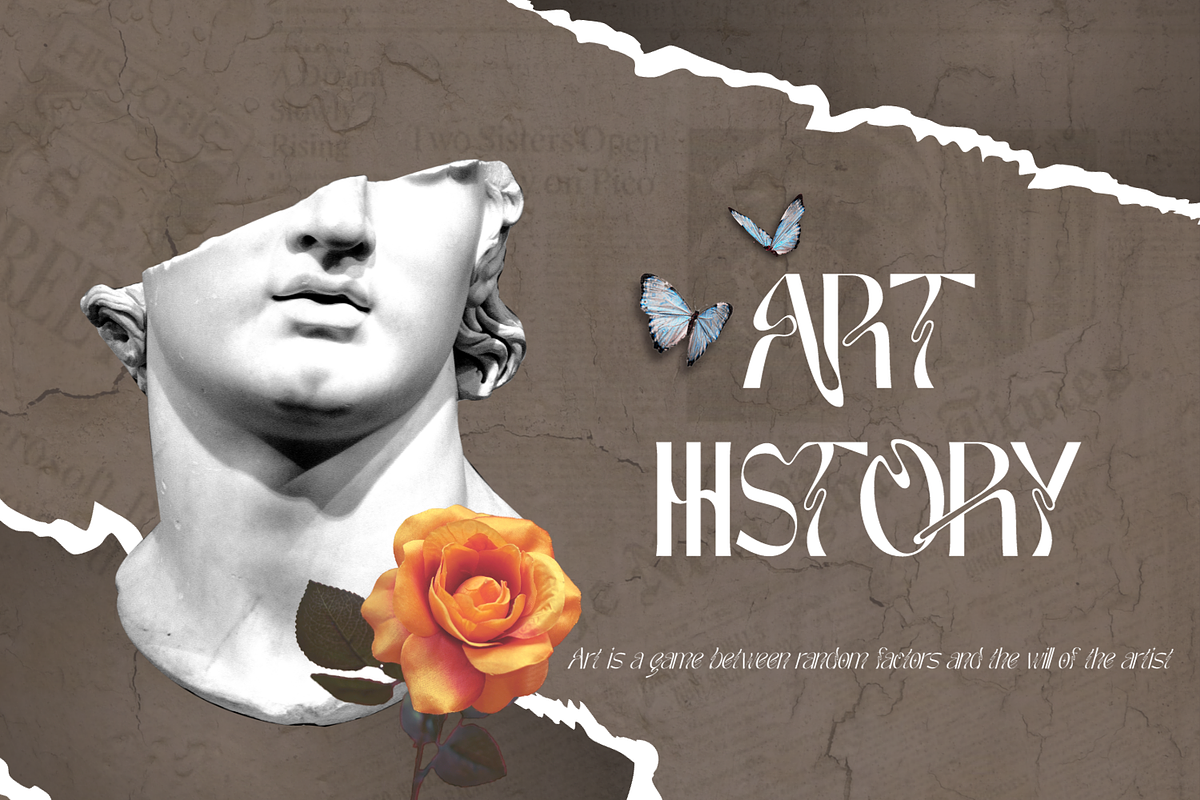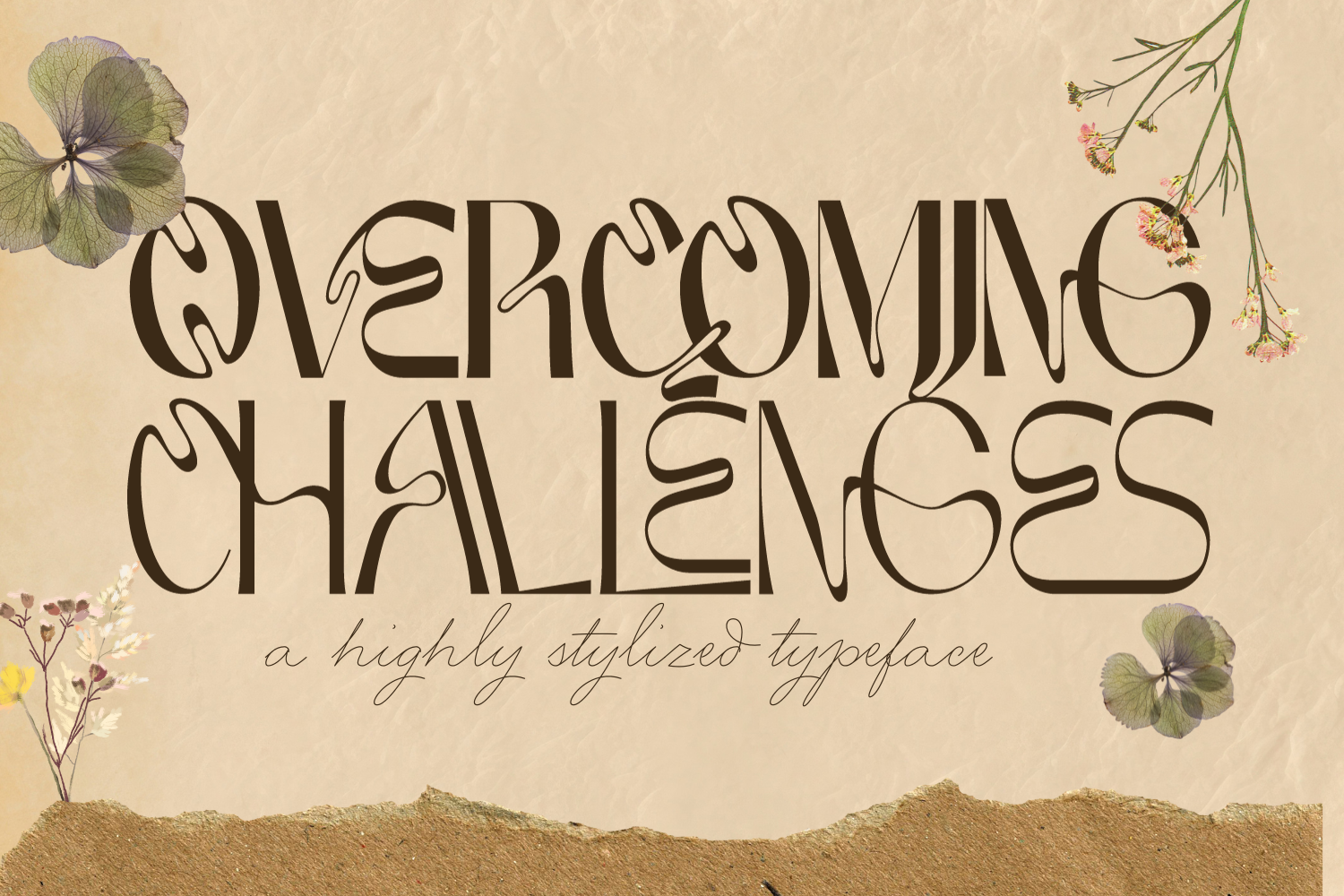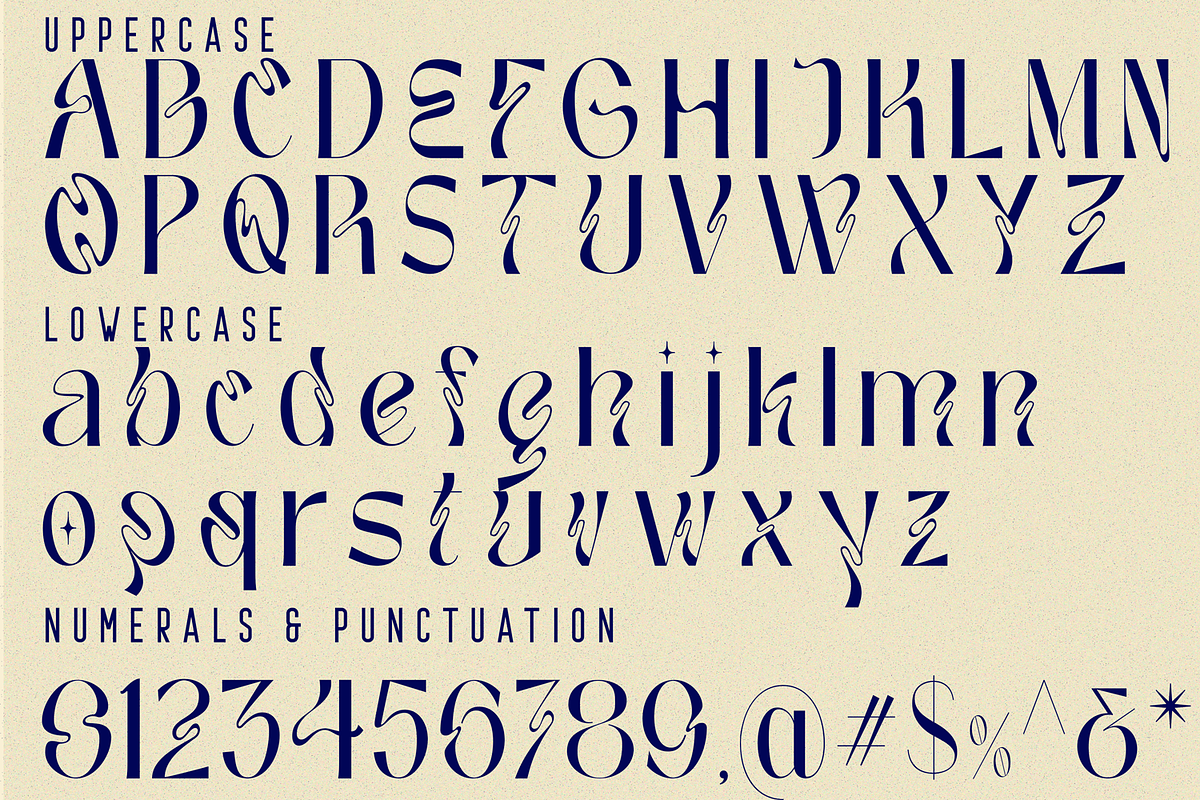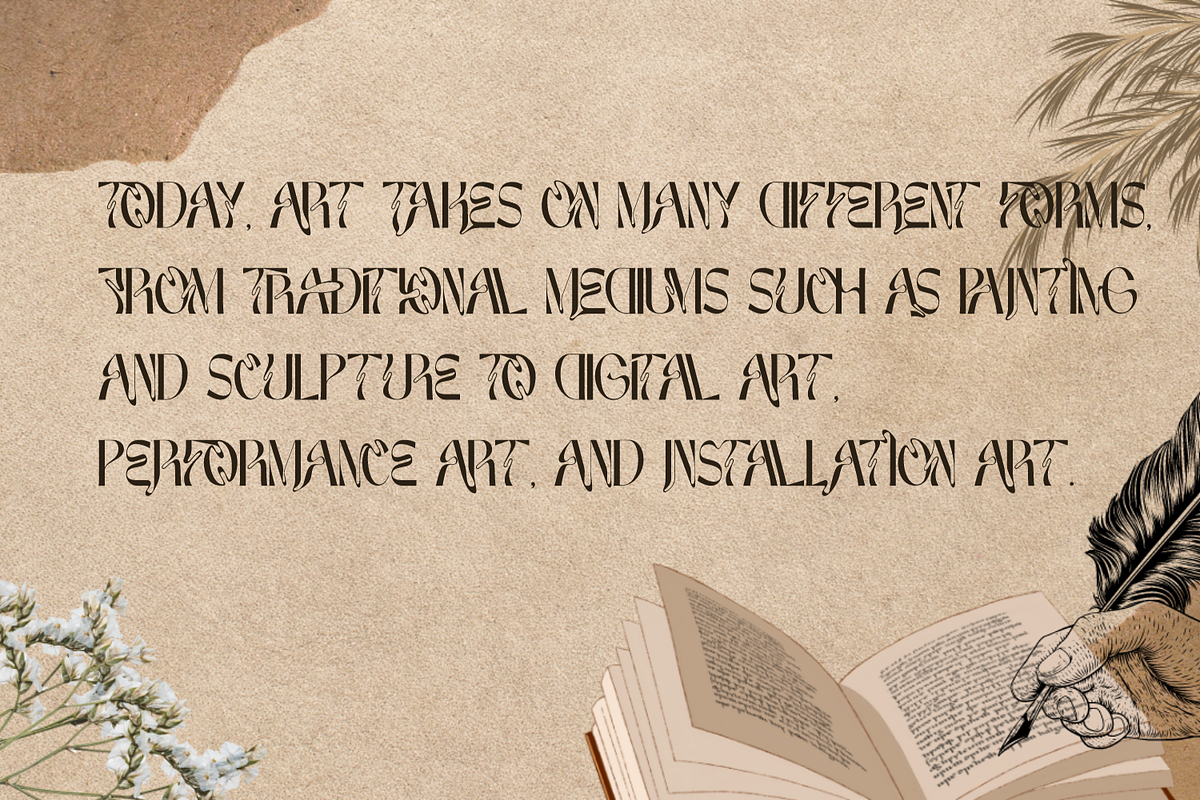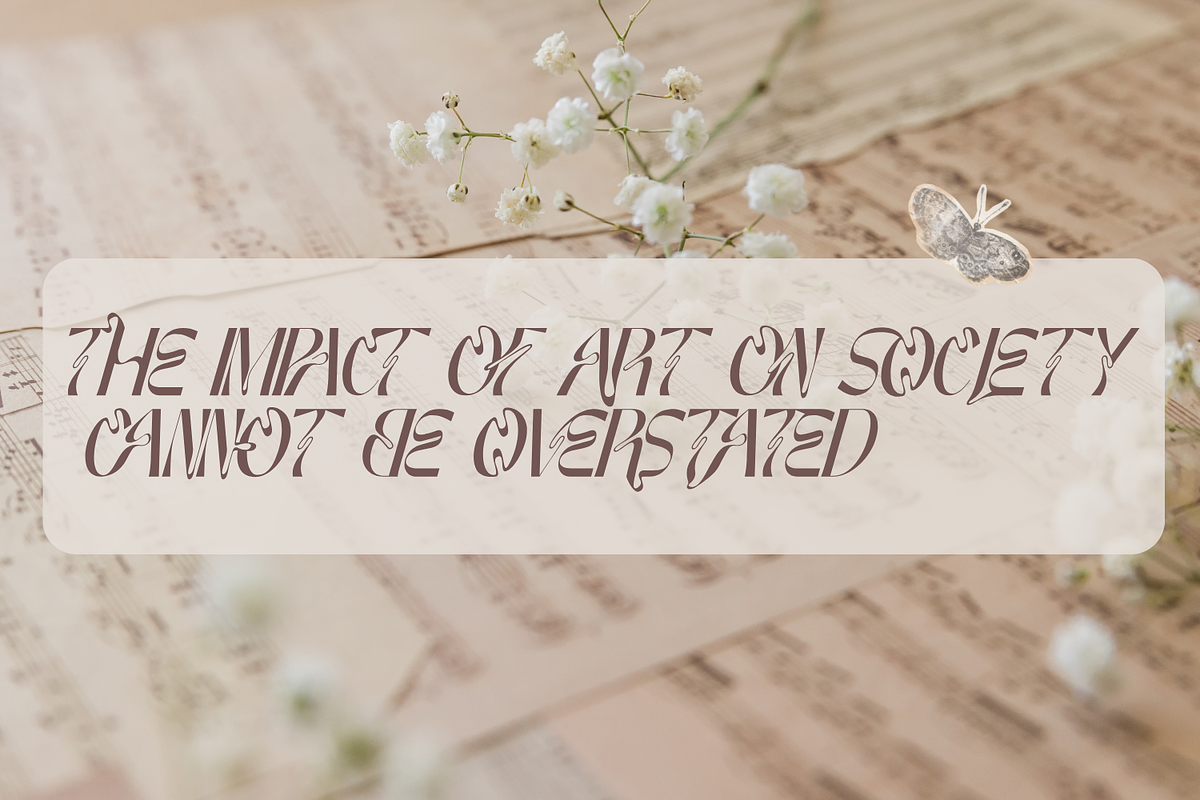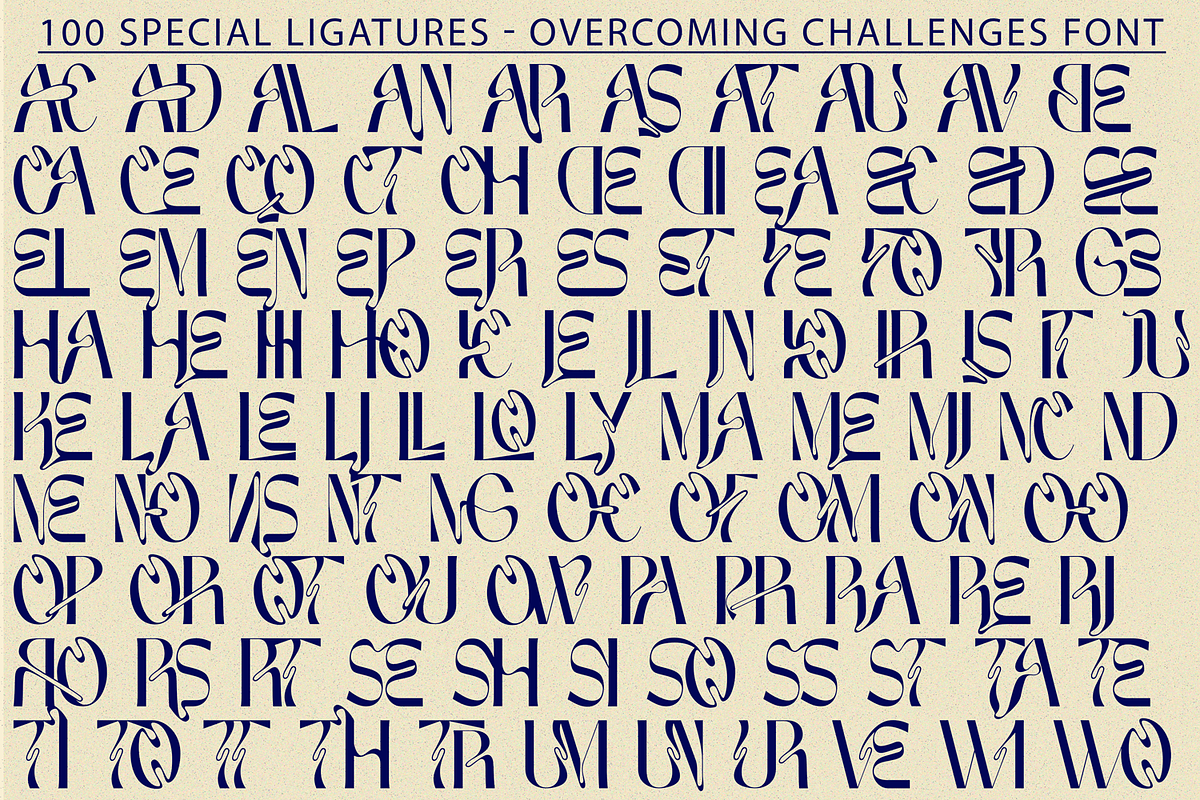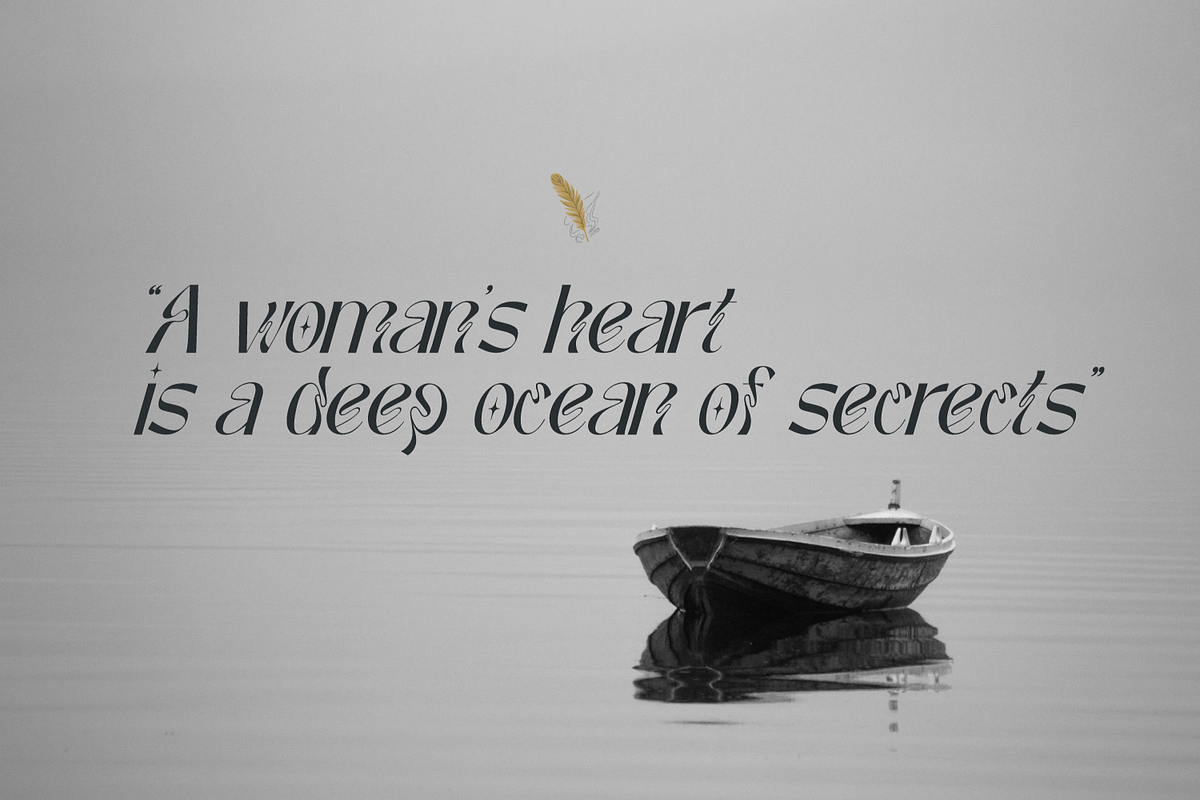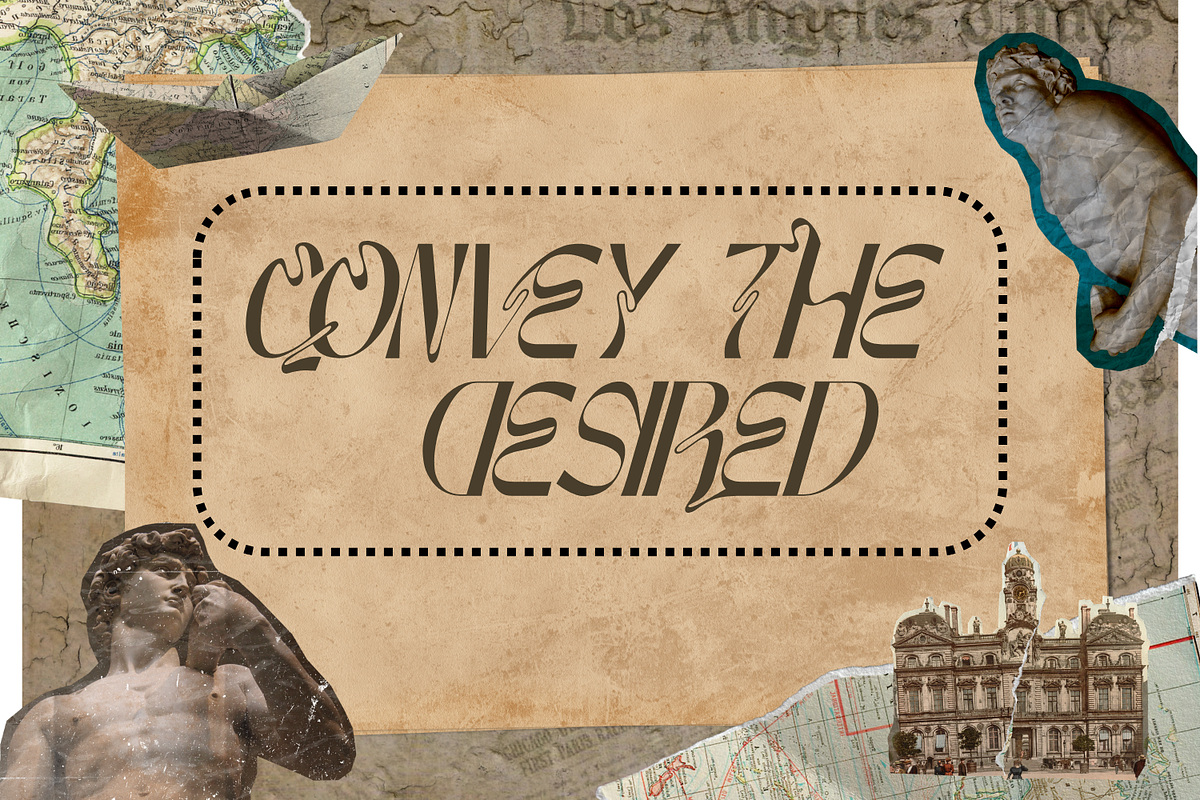
OVERCOMING CHALLENGES FONT
OVERCOMING CHALLENGES FONT is a retro inspired display typeface. a highly stylized typeface with over the top psychedelic vibes. It's a retro-style font that encapsulates the spirit of the psychedelic era. The fascinating and intriguing personality of the typeface will undoubtedly transport viewers to another time and place.
OVERCOMING CHALLENGES was built with OpenType features and includes 100 ligatures, alternate, numbers, punctuation, and it also supports other languages.
AC AD AL AN AR AS AT AU AV BE CA CE CH CO CT DE DI EA EC ED EE EL EM EN EP ER ES ET FE FO FR GE HA HE HI HO IE IC IL IN IO IR IS IT JU KE LA LE LI LL LO LY MA ME MI NC ND NE NG NO NT NS OC OF OM ON OO OP OR OT OU OW PA PR RA RD RE RI RO RS RT SE SH SI SO SS ST TA TE TH TI TO TR TT UM UN UR VE WI WO